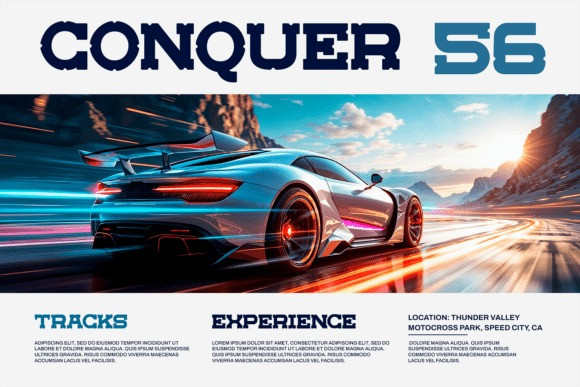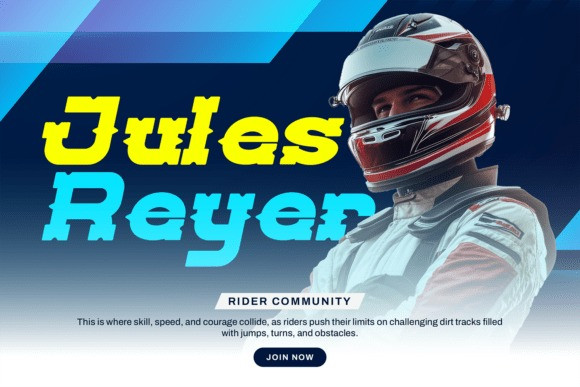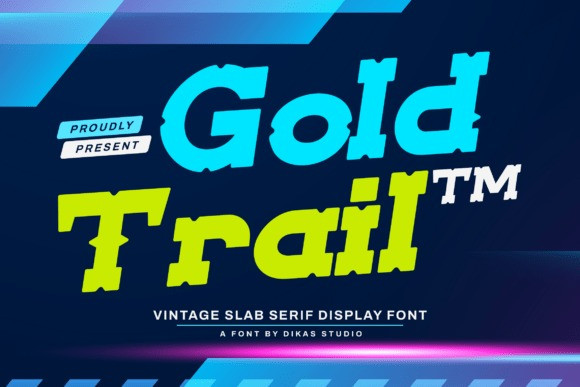
Gold Trail Font
Gold Trail Font is a bold slab serif typeface crafted for strength, impact, and unwavering confidence. With its thick, weighty letterforms and pronounced slab-shaped serifs, it exudes authority and makes an instant impression in any visual context.
Designed to dominate the spotlight, Goldtrail is ideal for logos, posters, headlines, sports branding, and advertising that demands bold visual energy. Whether you’re building a rugged identity or aiming for a high-impact statement, Goldtrail combines clarity, structure, and striking style—all without compromise.